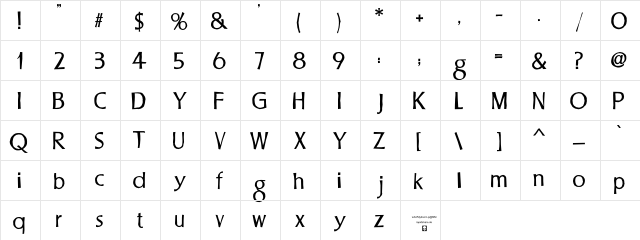
LHF Stevens Percepta Medium Regular
| Foundry | Arthur Vanson for Letterhead Fonts |
| Designer | Arthur Vanson |
Design Context for LHF Stevens Percepta Medium Typeface
LHF Stevens Percepta Medium is a composed and adaptable typeface that performs quietly and consistently across a wide range of design contexts.